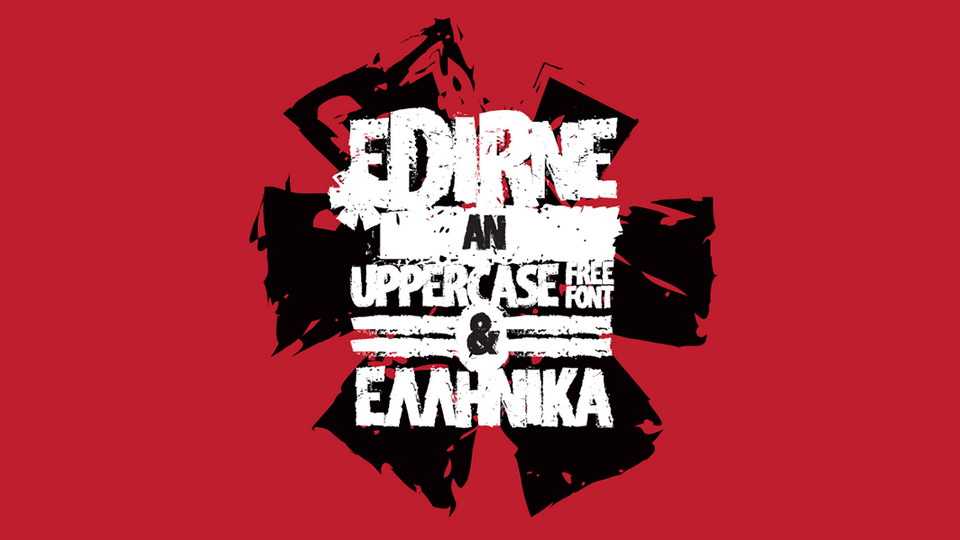
Download Edirne font, a grungy rough texture brush painted typeface. It works best for posters, headlines and banners, also suitable for apparel and other prints.